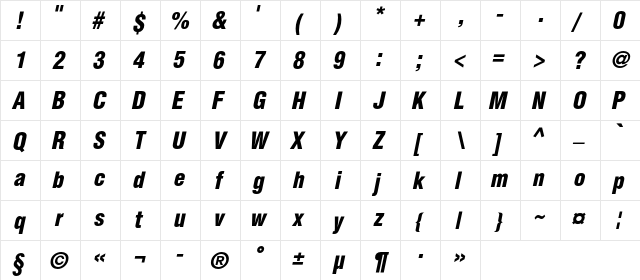
HeliosCondBlack Italic Font Preview
Design Context for HeliosCondBlack Typeface
HeliosCondBlack is a composed and adaptable typeface that performs quietly and consistently across a wide range of design contexts. Its italic angle brings a sense of urgency and motion to the letterforms. Its narrow stance lets it pack a punch even in space-constrained designs.
Pro Tip: Try HeliosCondBlack for annotation and caption copy alongside an upright companion — the contrast in angle creates a dynamic but ordered typographic system.